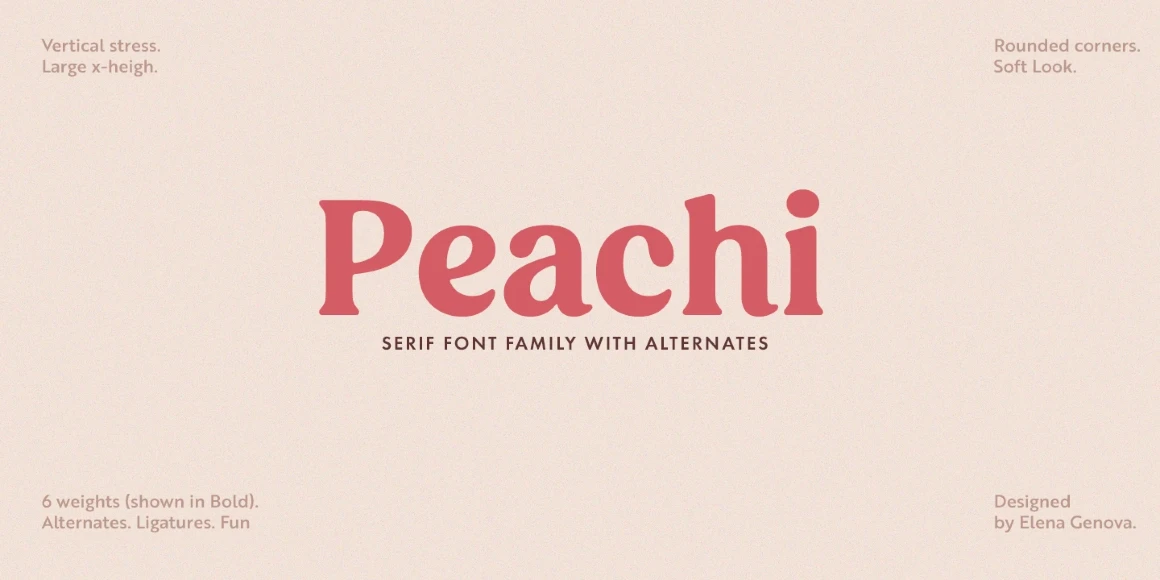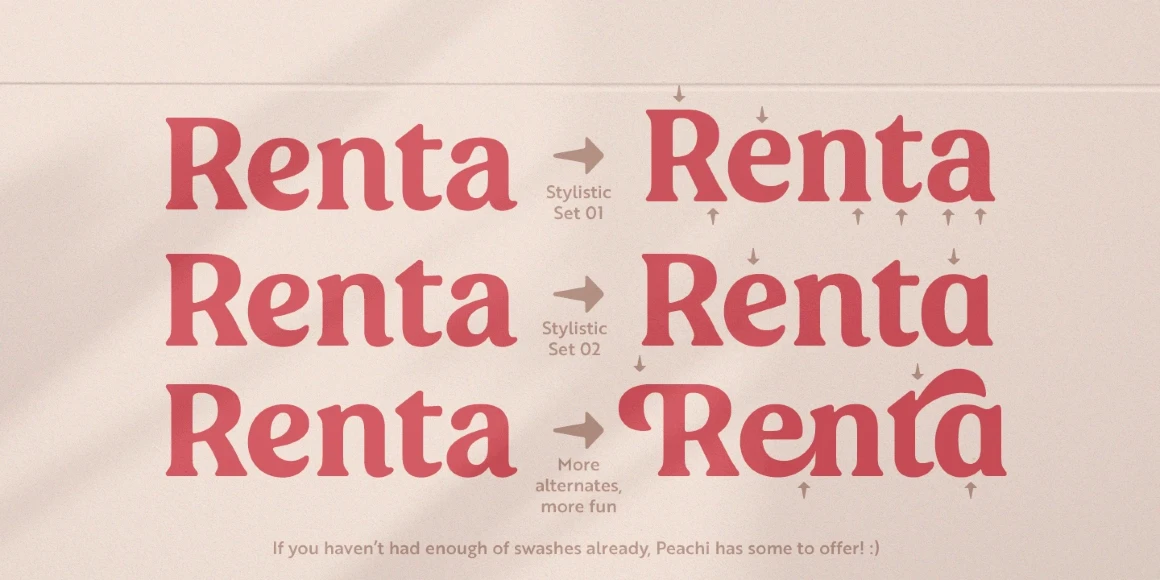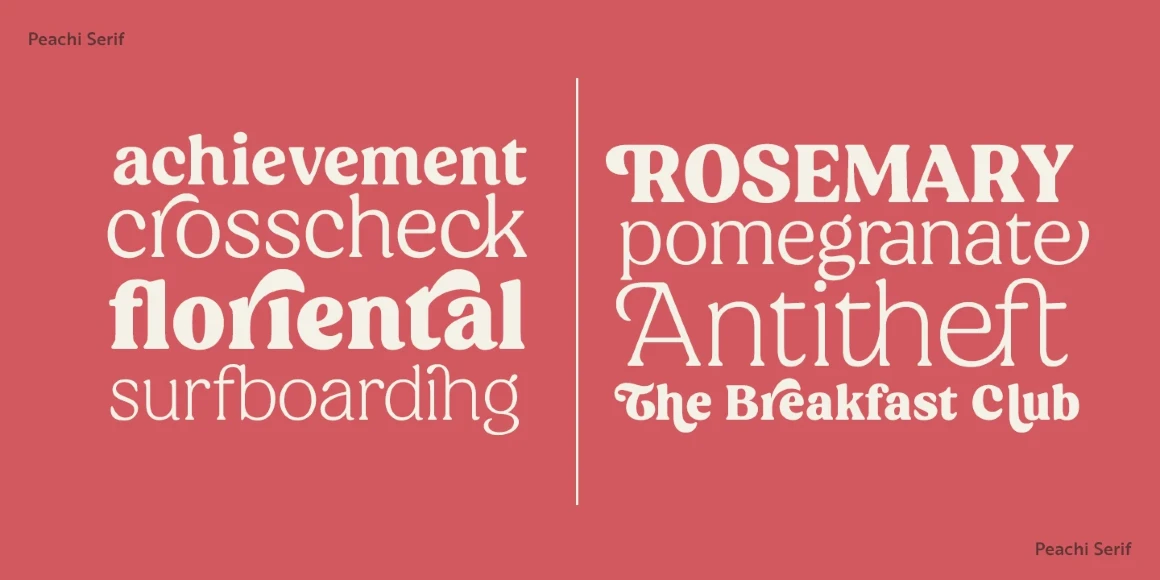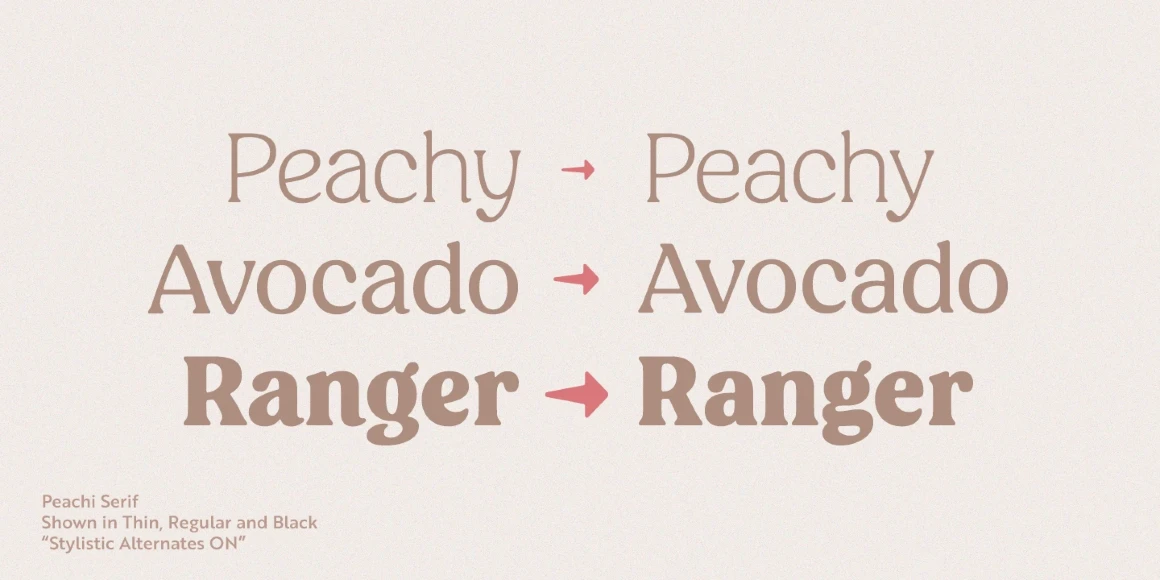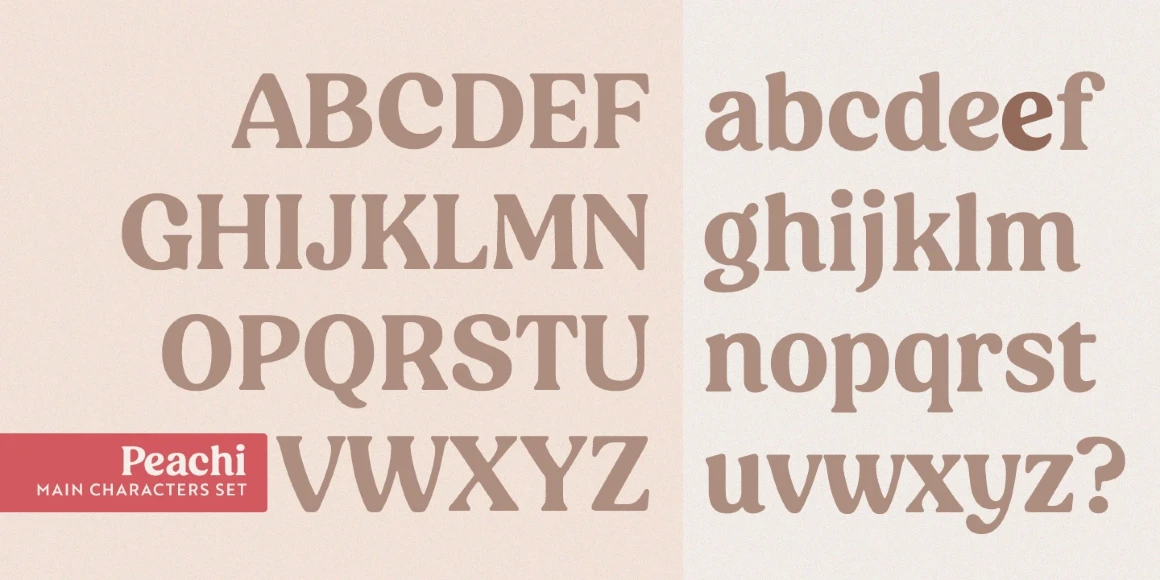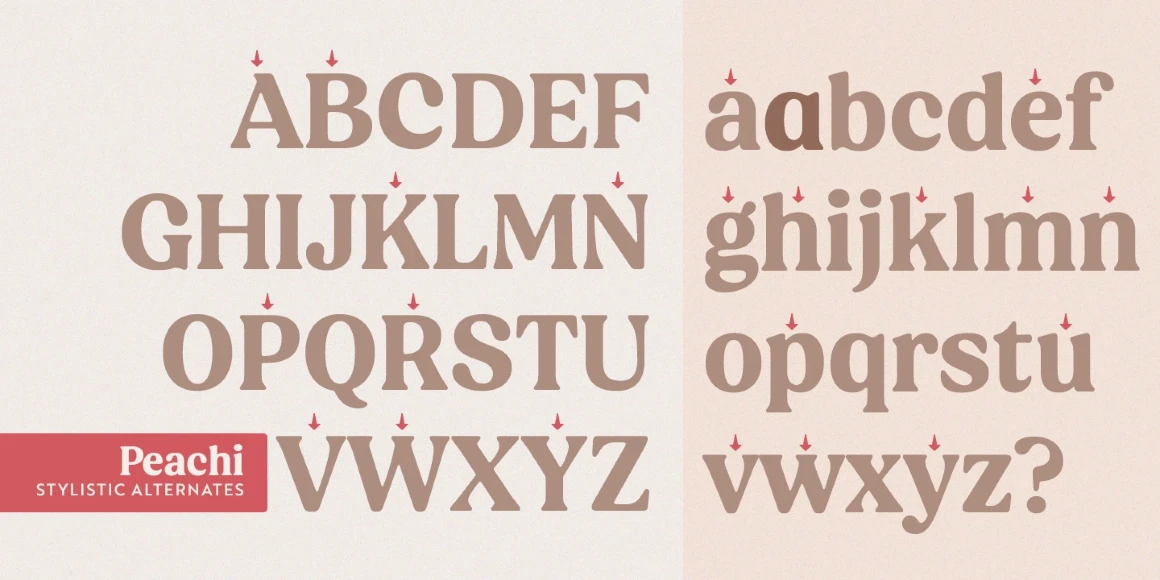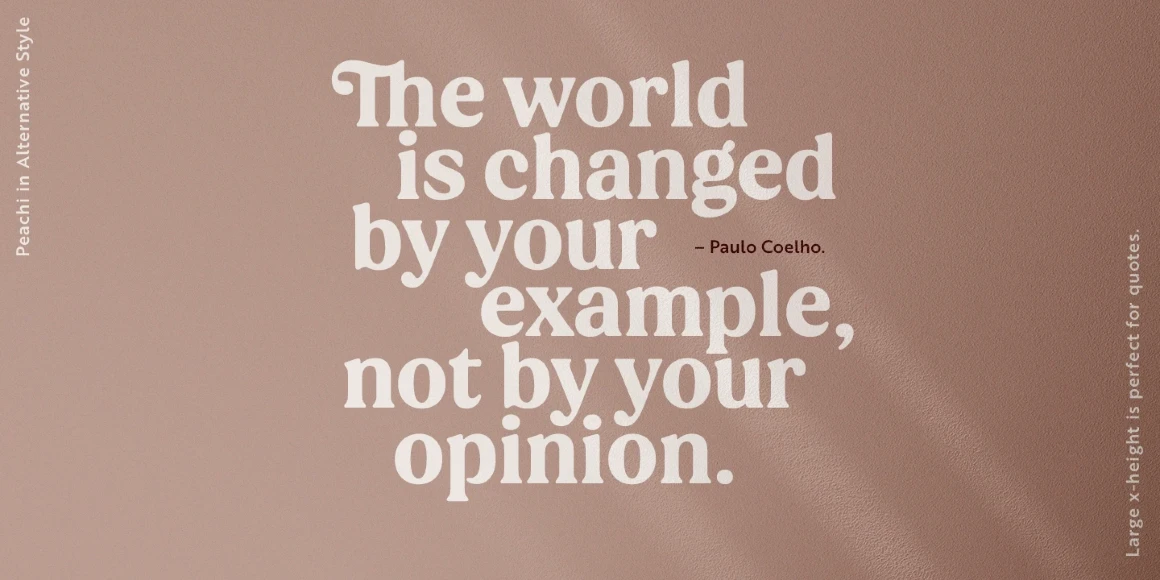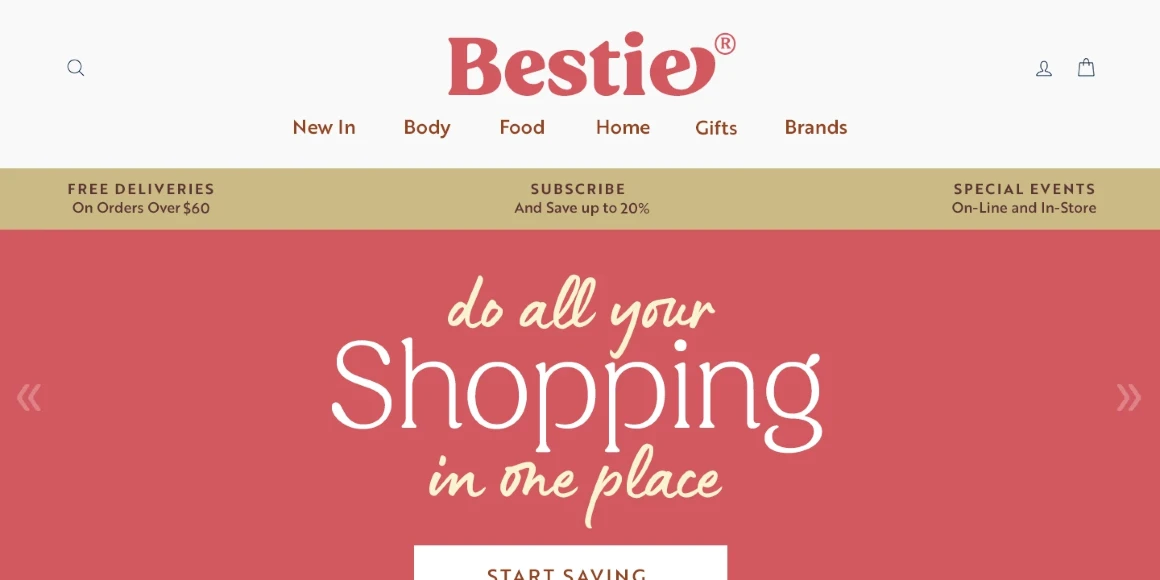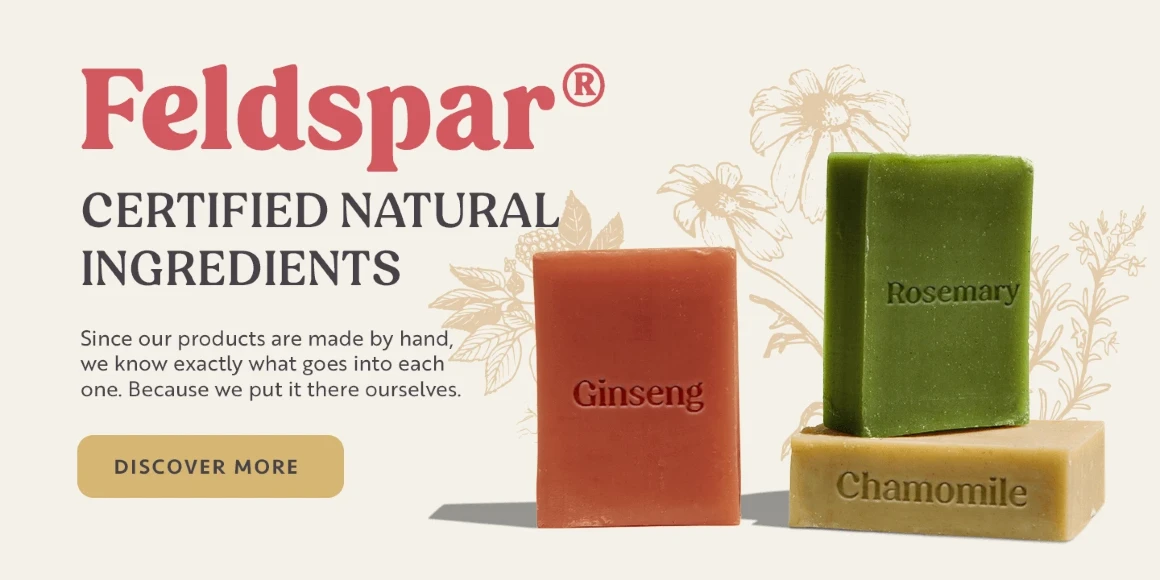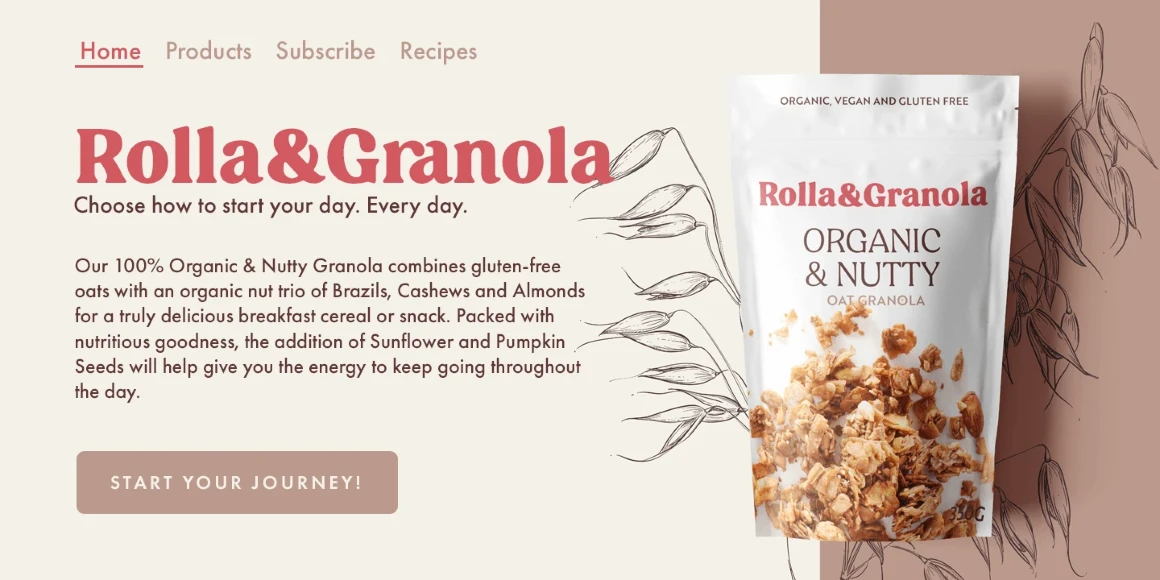
Peachi
From My Creative Land
Peachi is a serif typeface loosely based on Morris Fuller Benton’s Souvenir forms and other softer serif fonts designed in the early 1900s. Rather heavy ball terminals and a very large x-heigh make Peachi a perfect choice for designing titles, book covers, branding, and any other design that needs to be impactful and memorable. Peachi has 6 weights, from Thin to Black, with alternates that give it a more modern and versatile voice. It’s totally up to you which style to choose for your design.
Designed by Elena Genova